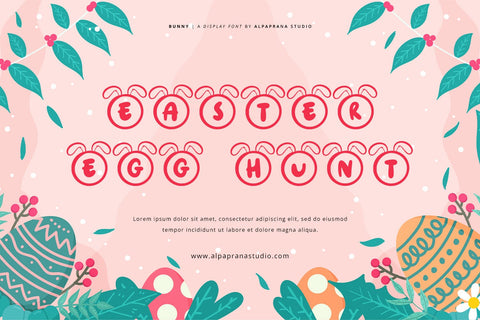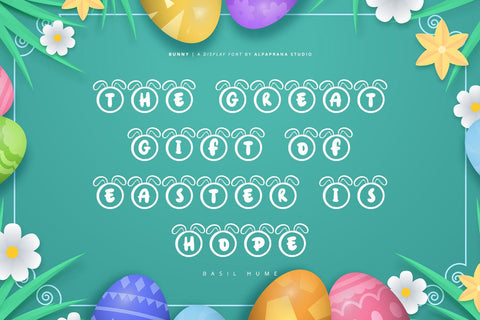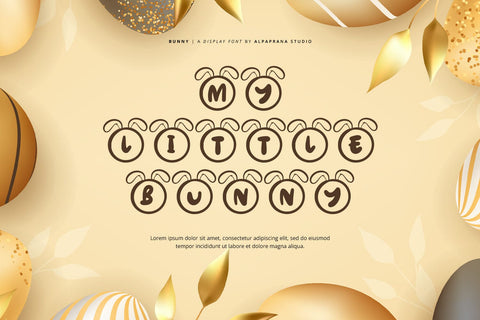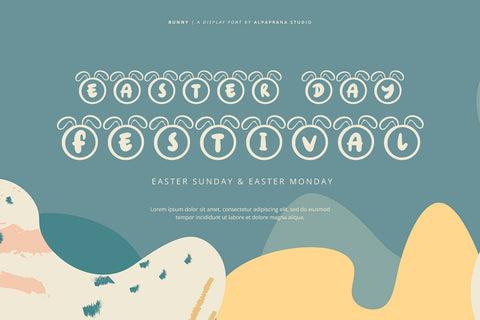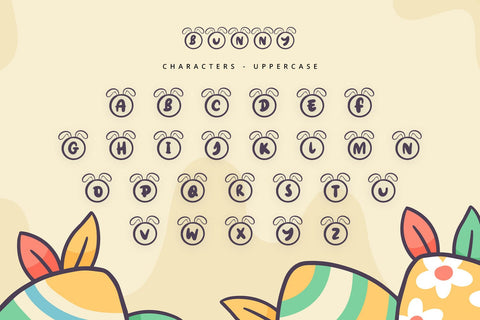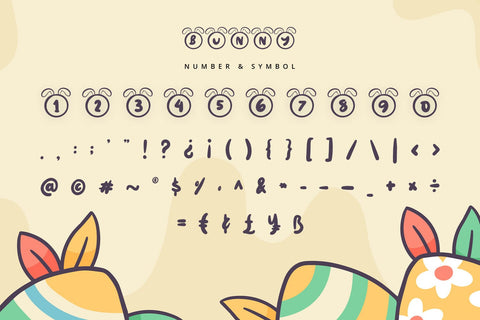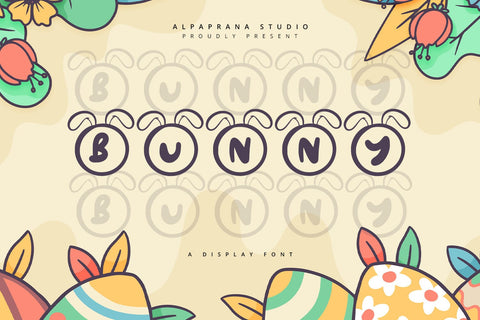
Bunny - Cute Display Font
Bunny is a cute display font with fun and playful feels. It will be perfectly used for Branding, Logo Design, Lettering, Logotype, Clothing, Poster, magazine, packaging, posters, shopping bags, t-shirts, book covers, photography, special events and other design project.